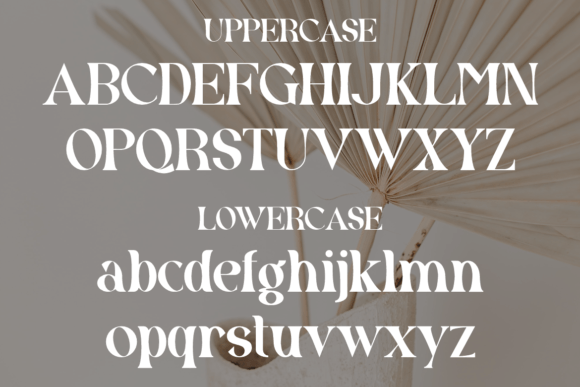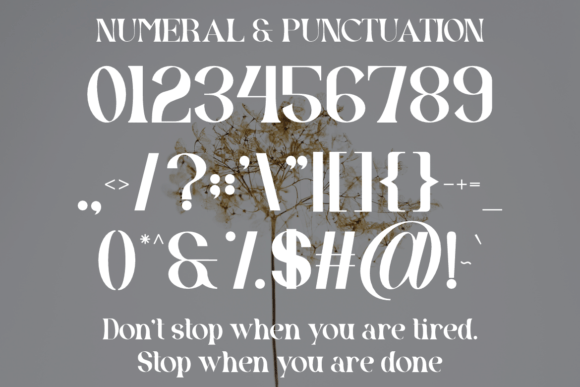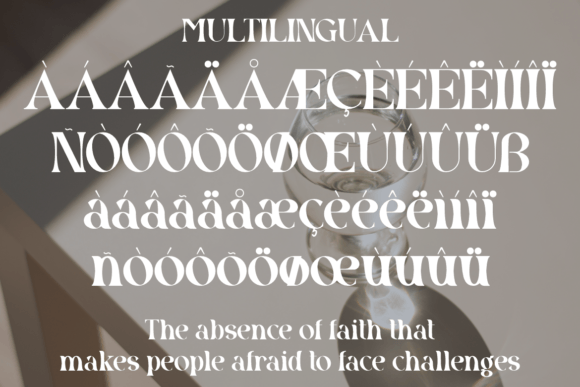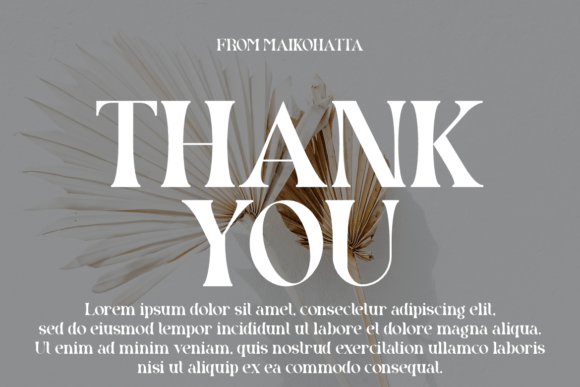
Introducing Glody Font: The Epitome of Modern Display Serif Elegance
In the realm of typography, the quest for the perfect font is a never-ending journey. For designers and crafters, the right typeface can elevate a project from mundane to magnificent. Today, we’re thrilled to introduce Glody – a modern display serif typeface that redefines the boundaries of elegance and sharpness. This exquisite font is meticulously crafted to meet the discerning needs of creative professionals, offering a harmonious blend of sophistication and precision.
The Design Philosophy Behind Glody
Glody is more than just a font; it’s a typographic masterpiece. Every letterform within this elegant typeface is carefully designed with a keen focus on balanced proportions and impeccable alignment. The result is a font that exudes confidence and poise, making it an ideal choice for a variety of applications, from high-end print design to captivating promotional materials and stylish magazine layouts.
Key Features of Glody Font
- Balanced Proportions: Each letter in Glody is crafted to ensure perfect harmony, creating a visually stunning text that’s both easy to read and aesthetically pleasing.
- Impeccable Alignment: The precise alignment of characters ensures that your text flows seamlessly, making it perfect for body text, headings, and everything in between.
- Elegant Serif Details: Glody’s modern display serif design adds a touch of sophistication to any project, setting it apart from more traditional typefaces.
- Versatility: Whether you’re working on a luxury brand campaign, a fashion magazine, or an elegant wedding invitation, Glody adapts effortlessly to any design context.
Applications of Glody Font
Glody’s versatility is one of its most compelling attributes. Here are just a few examples of how this exceptional font can be used:
- Print Design: Elevate your brochures, posters, and business cards with Glody’s luxurious feel.
- Promotional Materials: Make your flyers, banners, and advertisements stand out with a font that’s sure to capture attention.
- Magazine Layouts: Use Glody to add a touch of elegance to your editorial designs, from fashion and lifestyle magazines to art and culture publications.
- Digital Media: Glody also shines in digital contexts, including website headers, social media graphics, and email newsletters.
Why Choose Glody Font?
In a sea of typefaces, Glody stands out for several reasons:
- Unique Aesthetic: Glody offers a fresh take on serif typography, providing a distinctive look that will set your designs apart.
- High Readability: Despite its elegant design, Glody remains highly legible, even at smaller sizes.
- Time-Saving: With Glody, you can achieve professional-looking results quickly, thanks to its comprehensive character set and straightforward integration into your design workflow.
Glody font is a game-changer for designers and crafters seeking a modern, elegant, and versatile typeface. Its meticulous design, balanced proportions, and impeccable alignment make it an invaluable addition to any creative toolkit. Whether you’re aiming to create stunning print materials, captivating promotional content, or stylish magazine layouts, Glody is poised to become your go-to font for projects that demand a touch of sophistication and sharpness. Experience the elegance of Glody today and discover a new world of typographic possibilities.